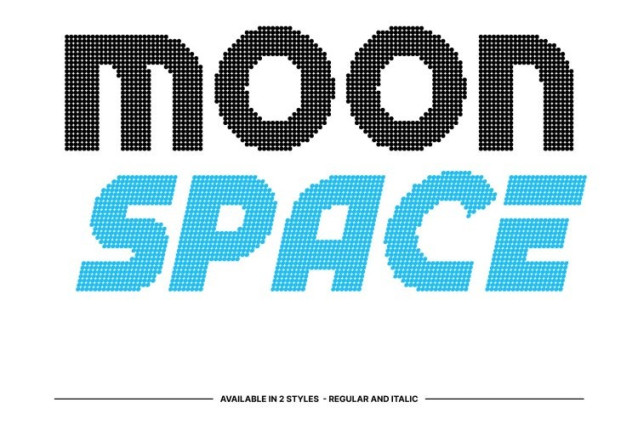
CS Beside Disco Font
CS Beside Disco Font This is a bold display font built to command attention through strong, dominant letterforms. Its heavy construction and confident posture create instant visual impact, making it ideal for headlines, posters, and branding that demand authority. Every character feels powerful, intentional, and ready to stand at the center of the design.
Experimental Futurism with Disco Attitude
Blending experimental typography with futuristic aesthetics, this font introduces unconventional shapes and daring structures that feel fresh and cutting-edge. The added disco style infuses glamour and rhythm inspired by flashing lights, nightlife energy, and bold stage visuals turning the type into a striking visual performance.
Striking Letterforms with Bold Readability
Despite its experimental nature, this font maintains clarity and legibility at large sizes. Its substantial weight, geometric foundation, and expressive details ensure strong visibility while adding a modern, high-impact personality. The balance of structure and creativity keeps the font bold without feeling chaotic.
Perfect for Futuristic Branding, Posters, and Party Visuals
This font excels in creative branding, editorial headlines, event posters, music visuals, and high-energy promotional designs. Its fusion of futuristic design and disco flair makes it especially effective for nightlife concepts, fashion campaigns, digital art, and bold creative projects that aim to feel modern, expressive, and impossible to ignore.